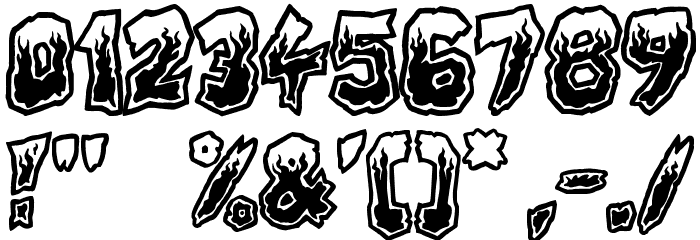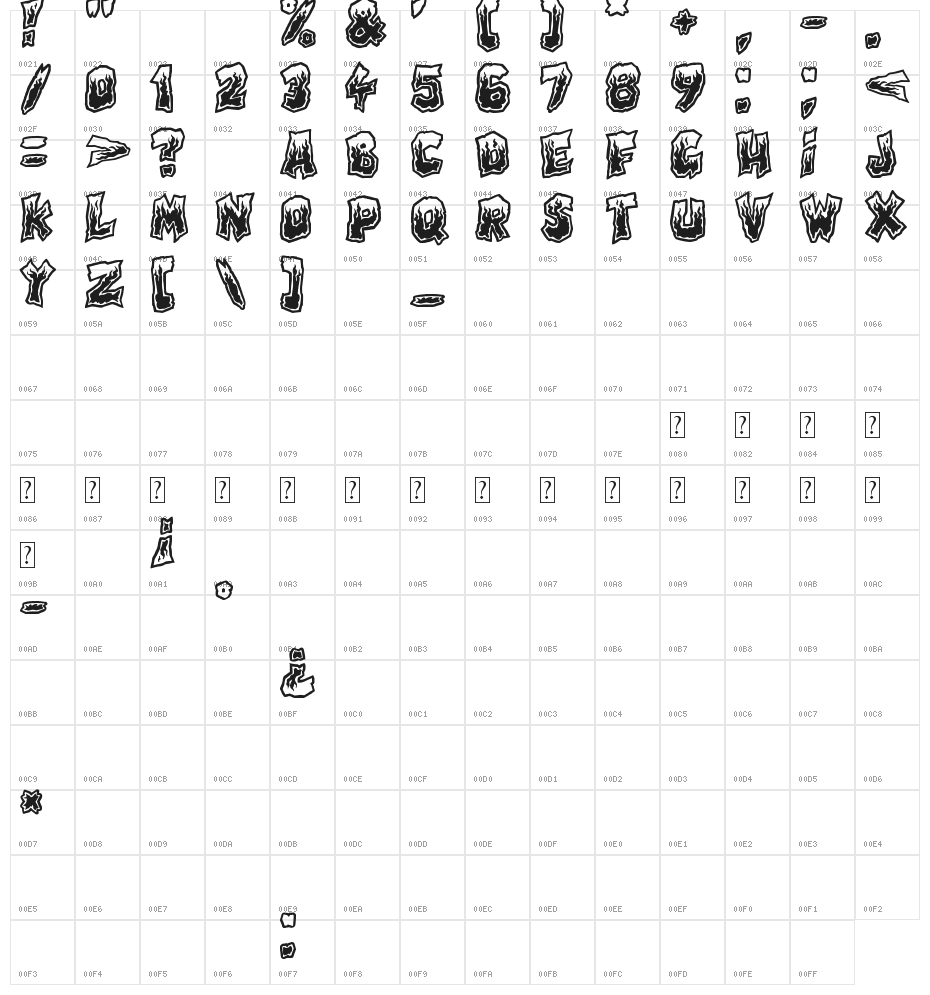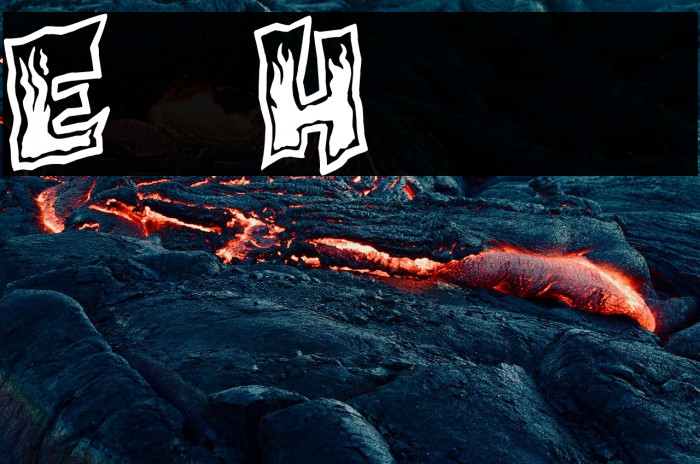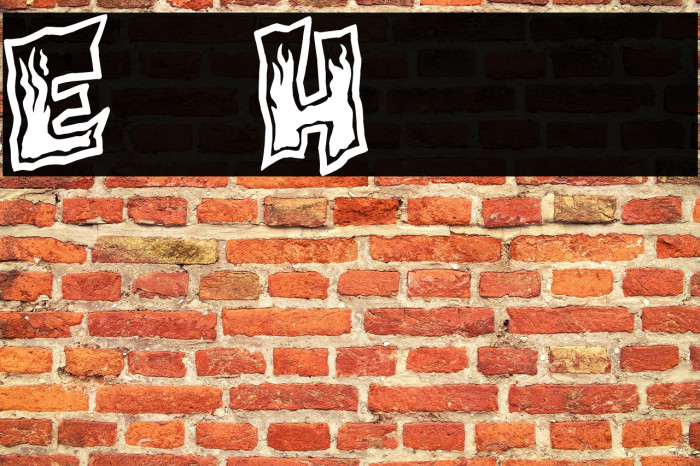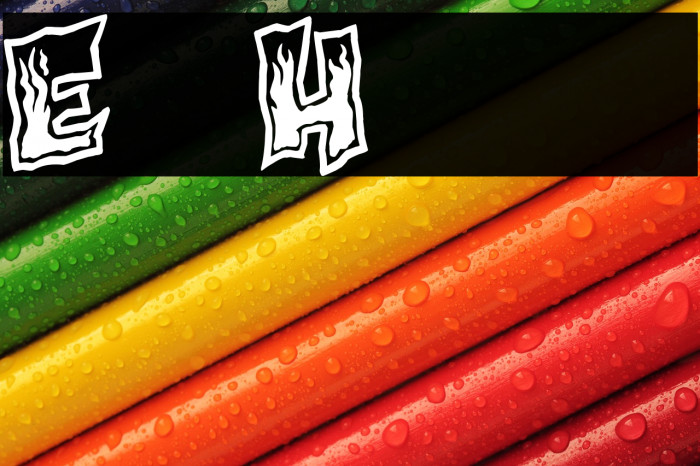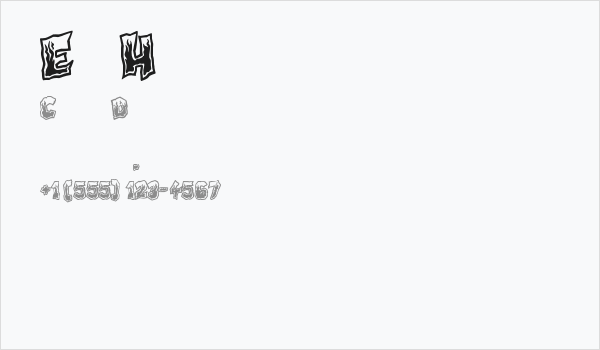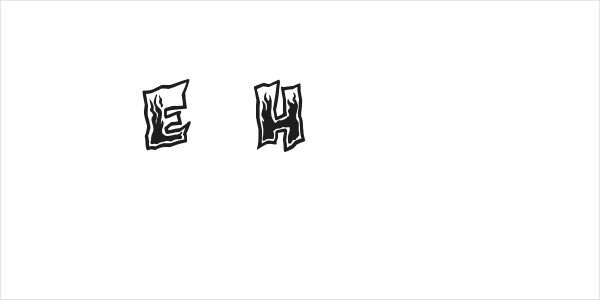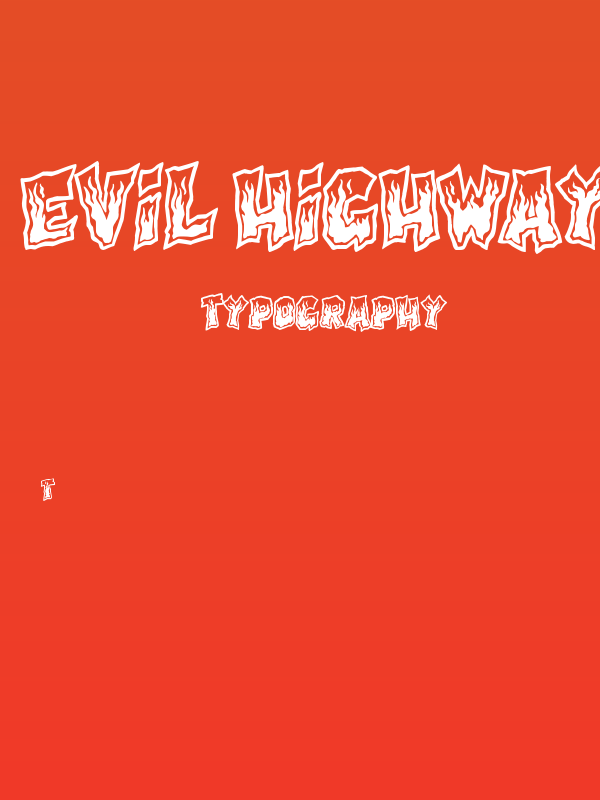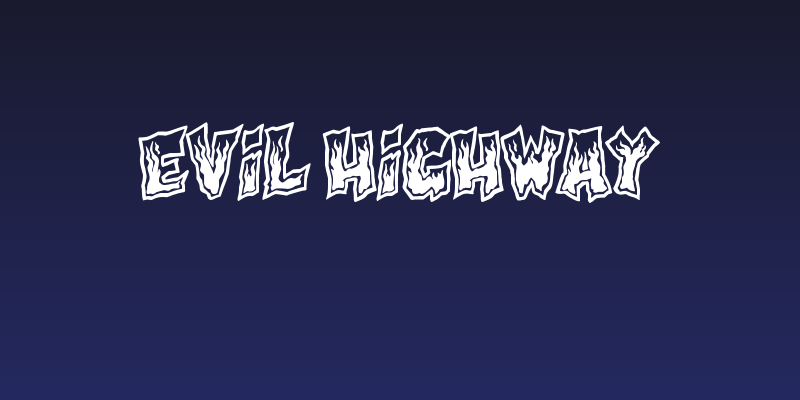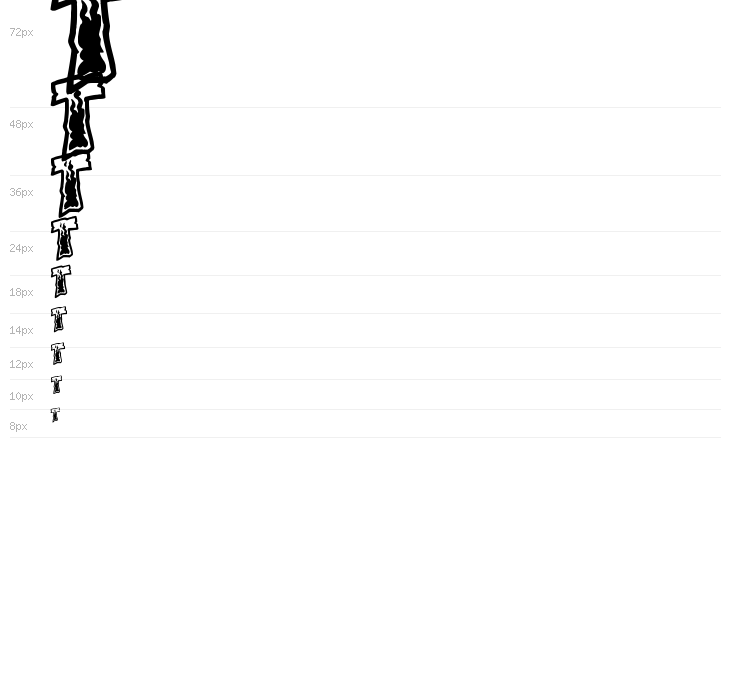
Evil Highway Font
This font features a bold and rugged design, characterized by its jagged edges and distressed appearance. The letters have a hand-drawn quality, giving them a raw and edgy feel. The uppercase and lowercase characters maintain a consistent style, with thick strokes and uneven outlines that suggest a sense of movement and energy. The numbers and special characters follow the same aesthetic, ensuring a cohesive look across all glyphs. This font is perfect for projects that require a dramatic and impactful visual presence.
A bold, rugged font with jagged edges and a distressed, hand-drawn appearance.
- Proposed Projects: Ideal for horror-themed posters, edgy branding, album covers, and video game graphics.